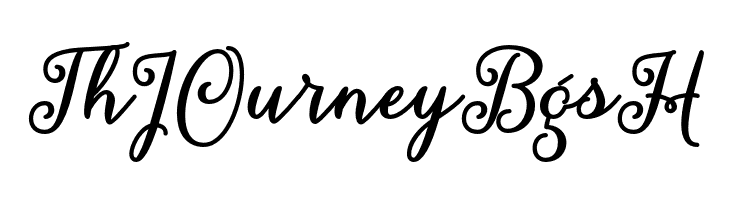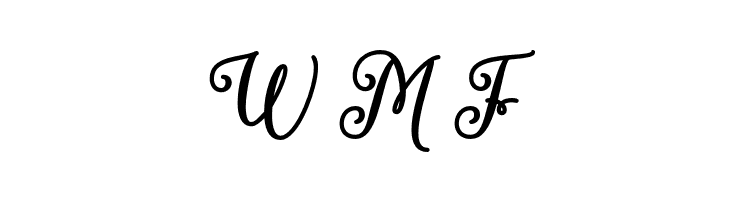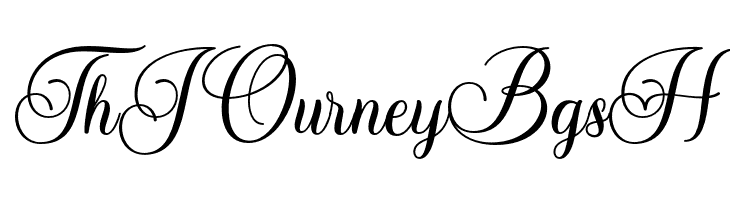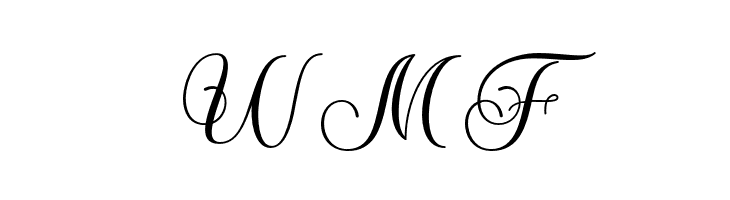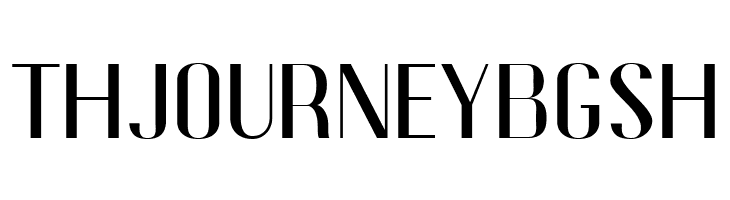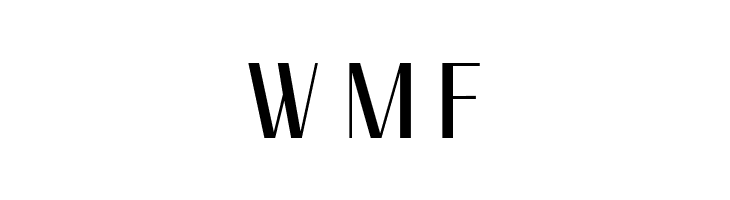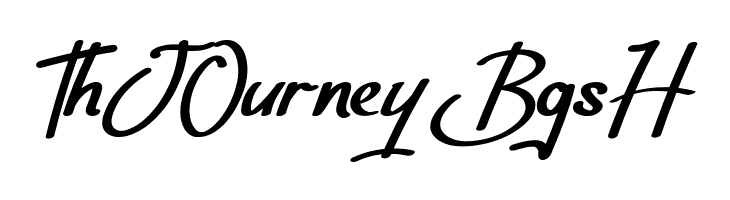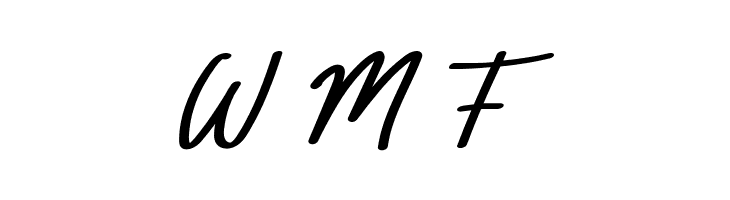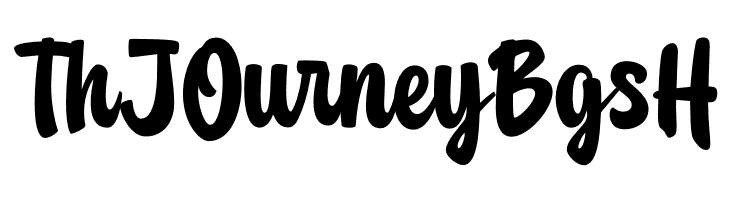
• Marchand de Venise
An elegant script font with intricate loops and flourishes.
• Marchand de Venise-Italic
An elegant, flowing script font with ornate and calligraphic elements.
• Marchanda
An elegant script font with flowing, decorative cursive letters.
• Marchanda
An elegant script font with flowing, decorative characters and refined flourishes.
• MarchCalligraphy
A sophisticated script font with elegant swirls and flowing cursive style.
• Marche Script PERSONAL USE Regular
A bold, expressive script font with flowing, cursive letterforms.
• Marchelina Script by Cotbada Studio
A bold, elegant script font with flowing, cursive lines.
• Marchell
An elegant and ornate script font with flowing letterforms and decorative swashes.
• Marchellia
A modern, high-contrast font with elegant, slender characters.
• Marchelly
A flowing, cursive font with elegant and sophisticated styling.